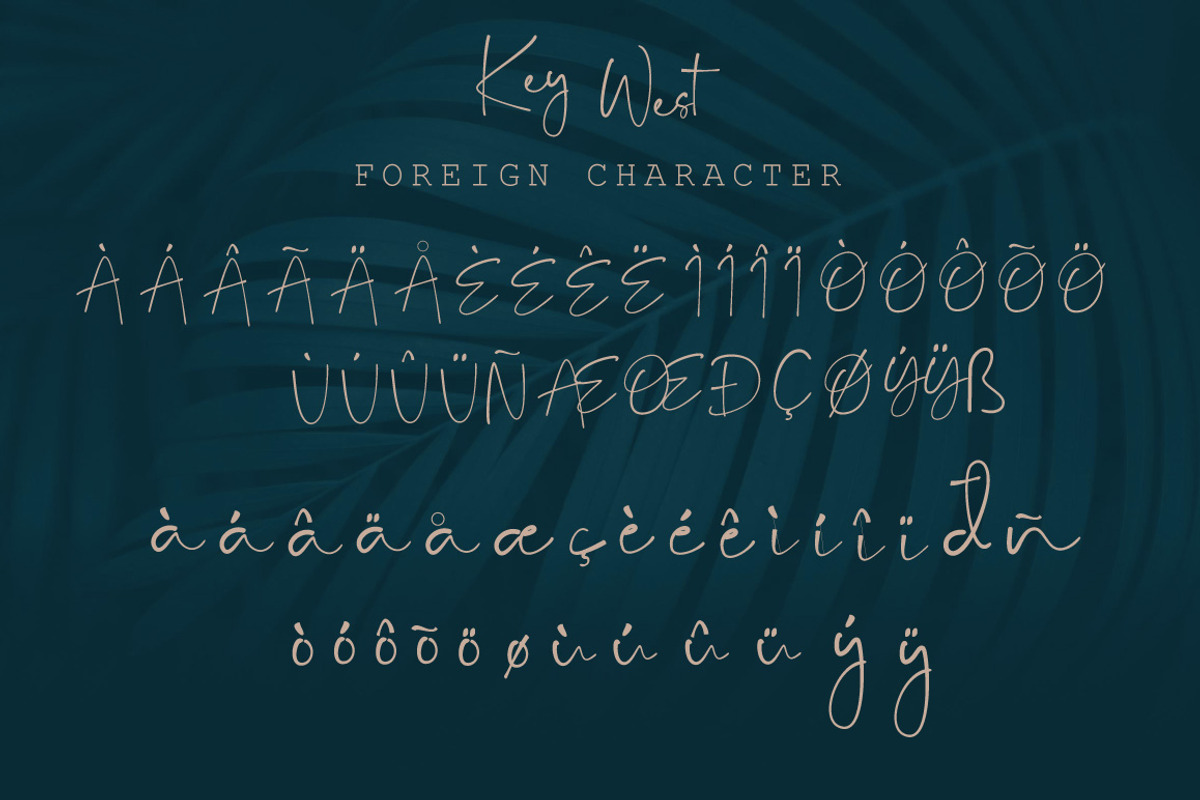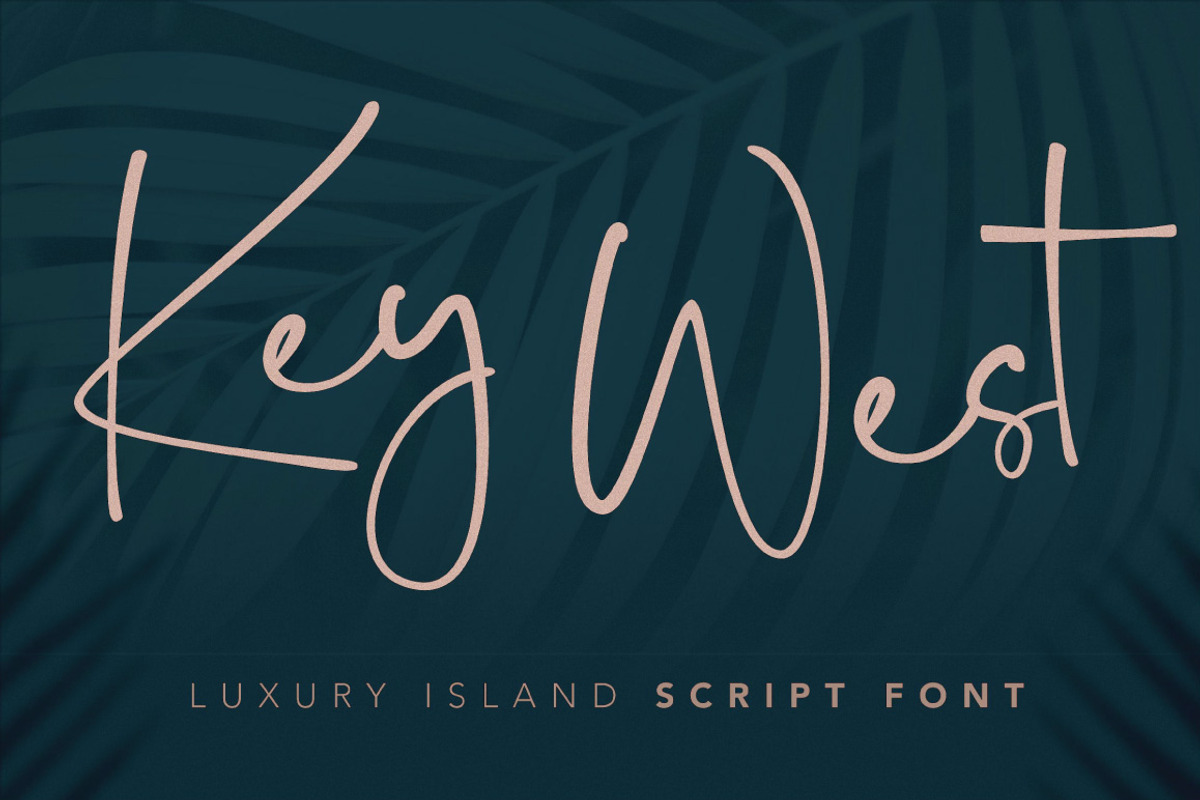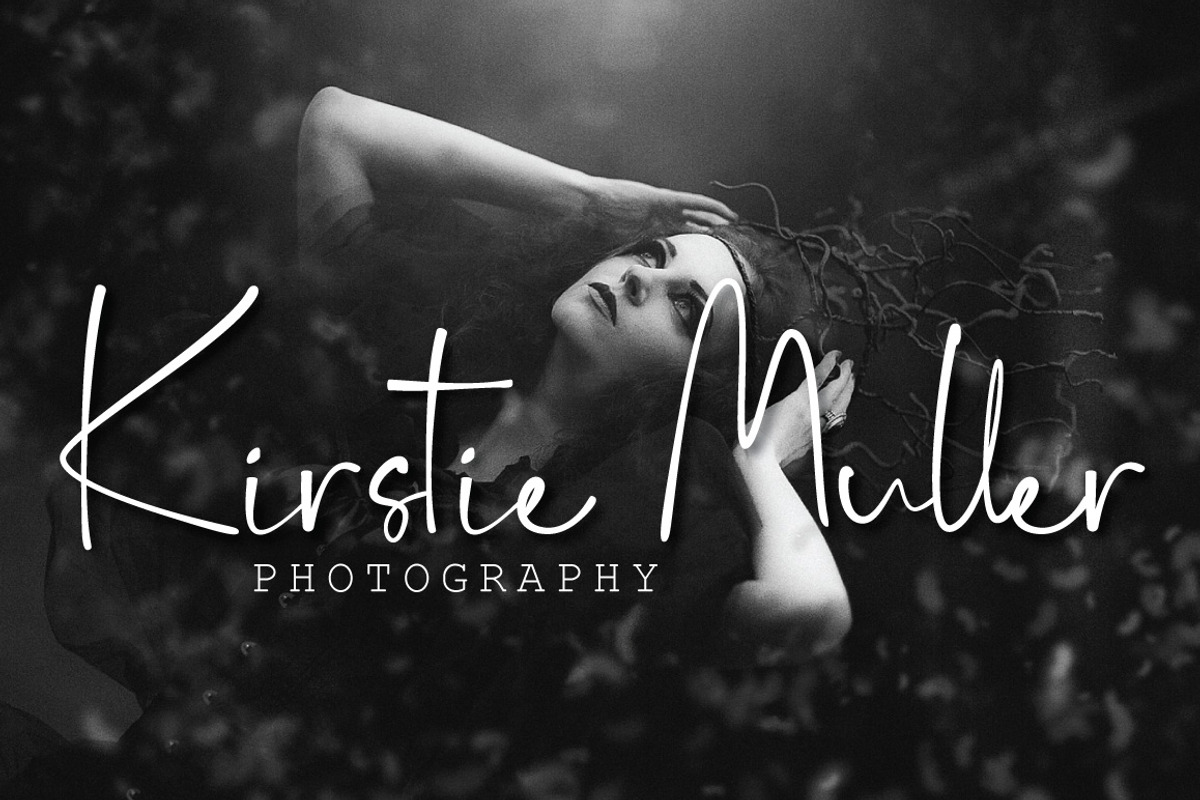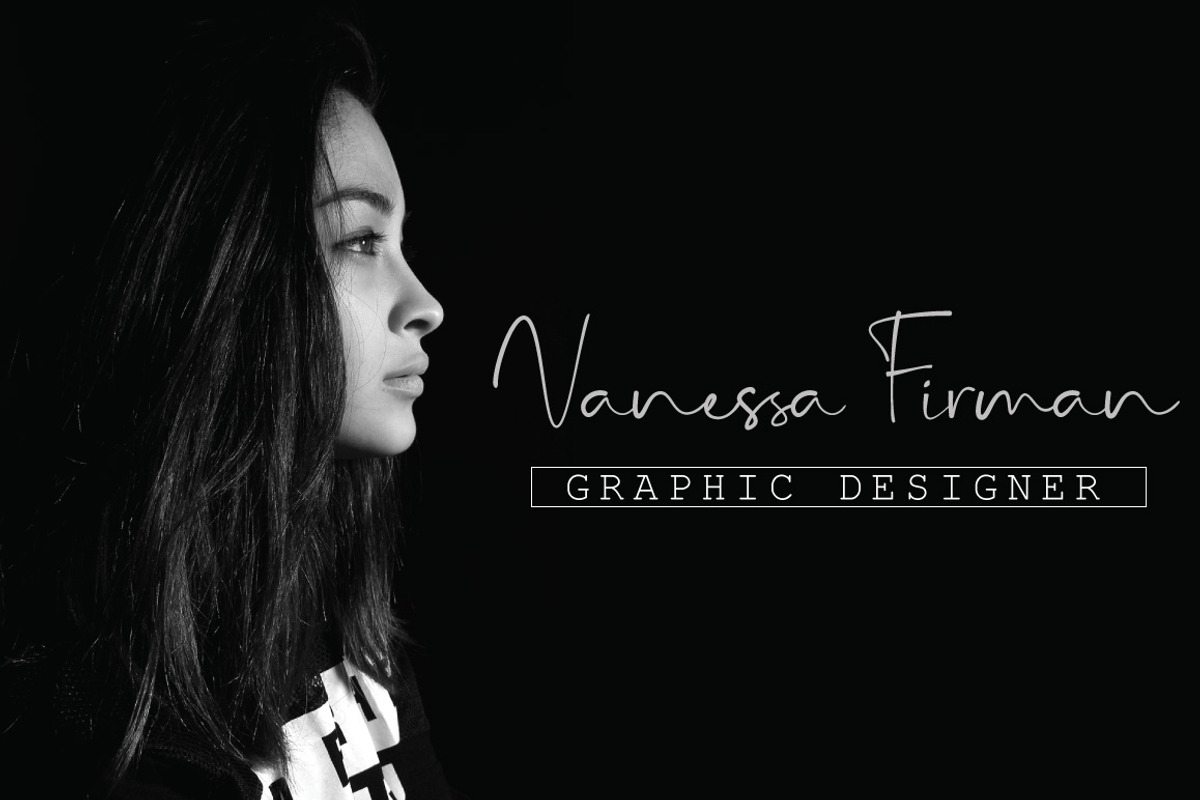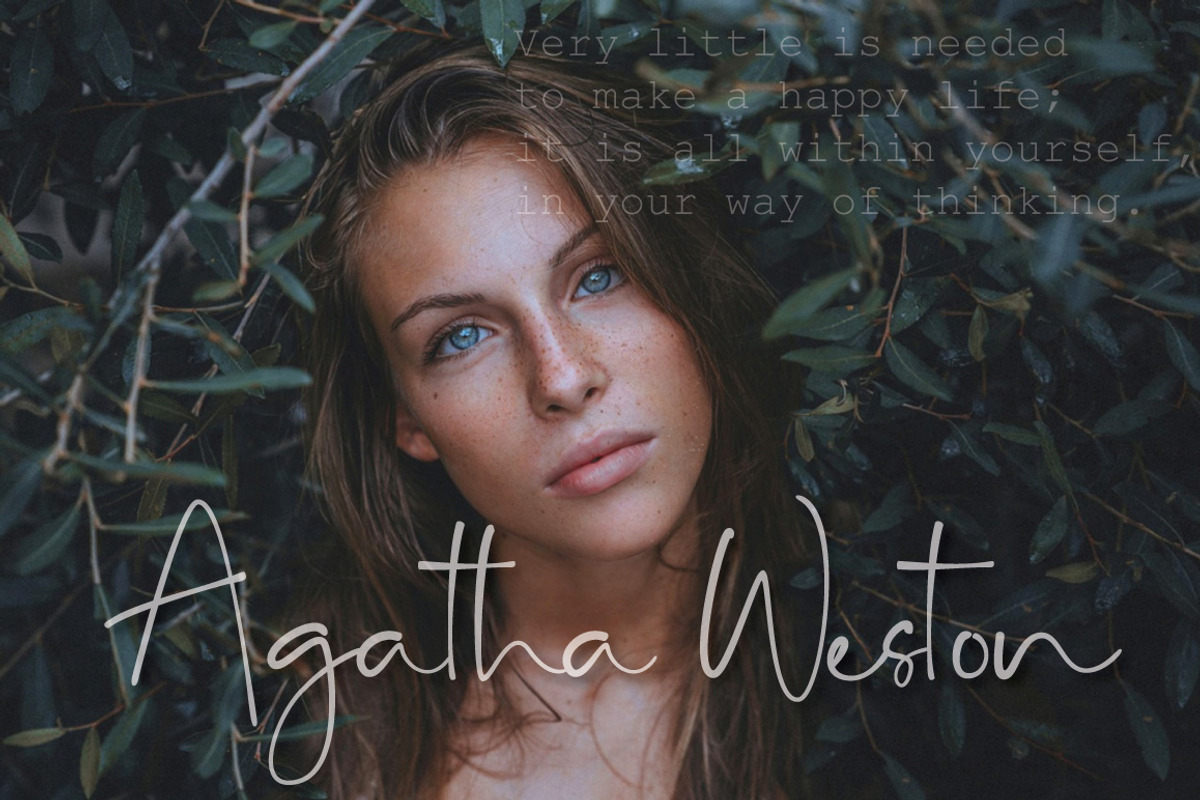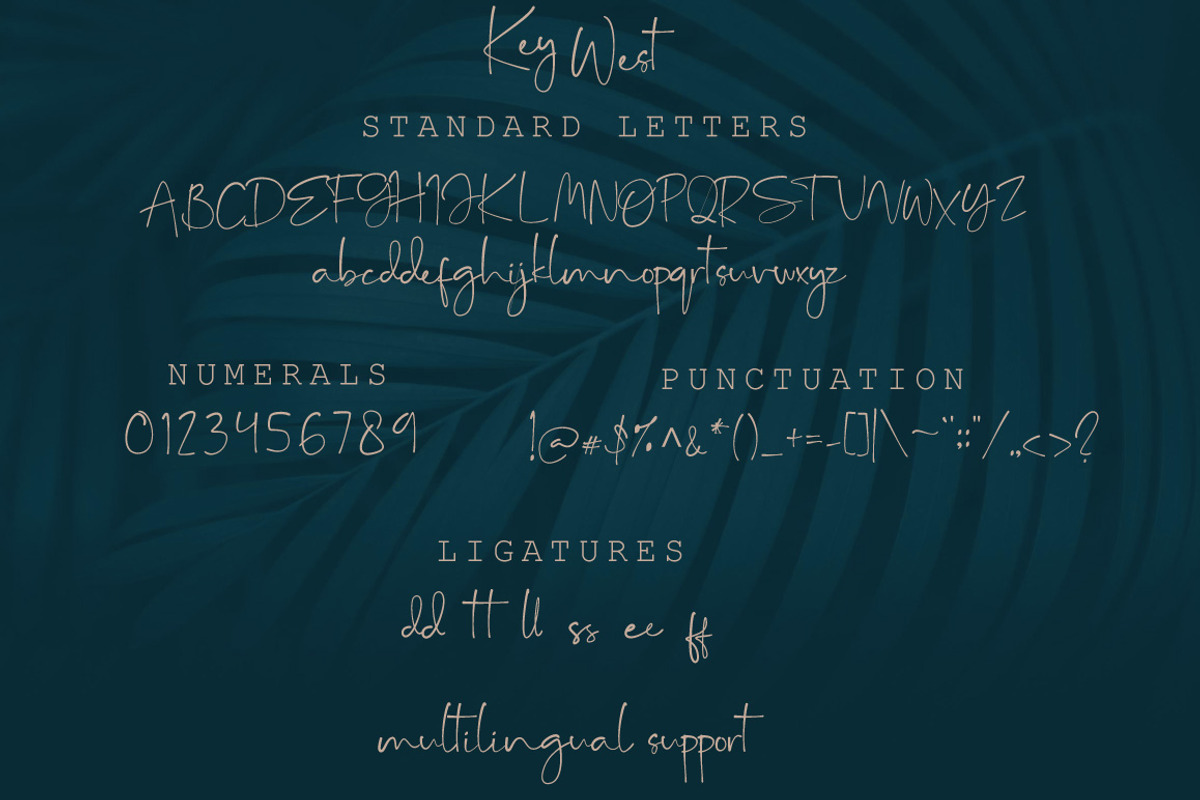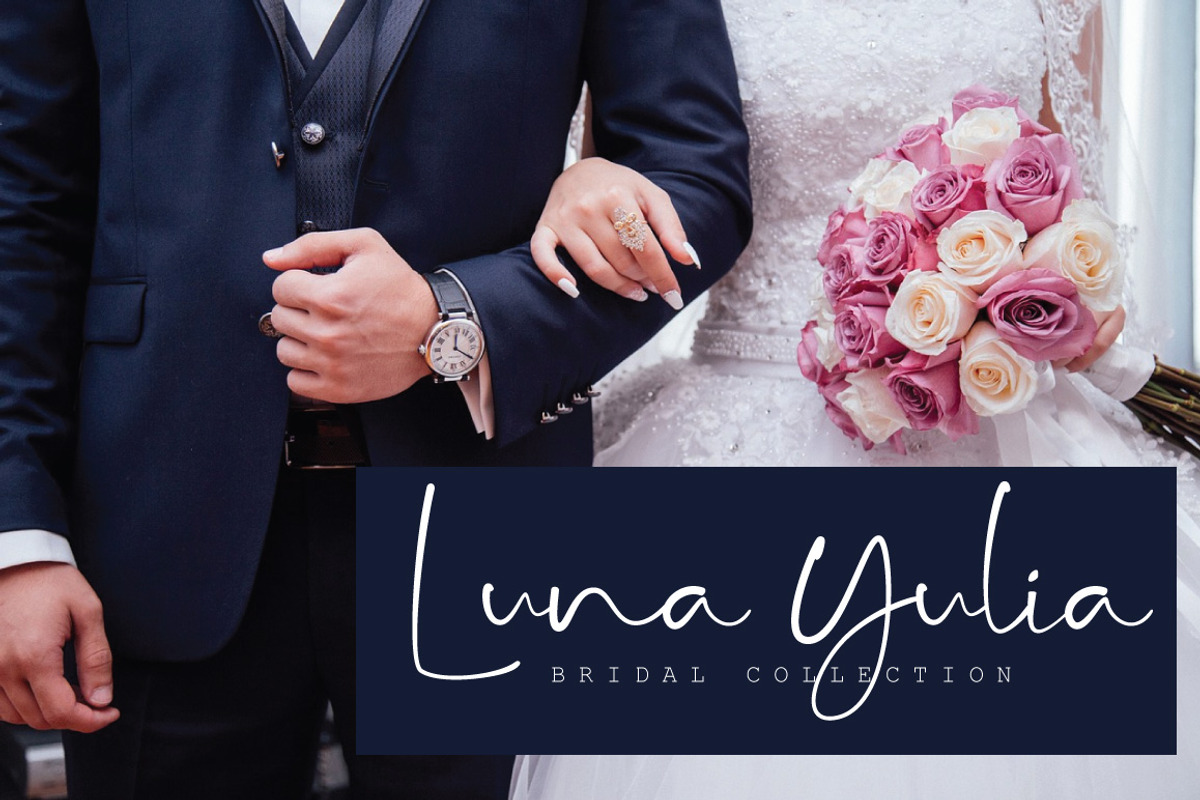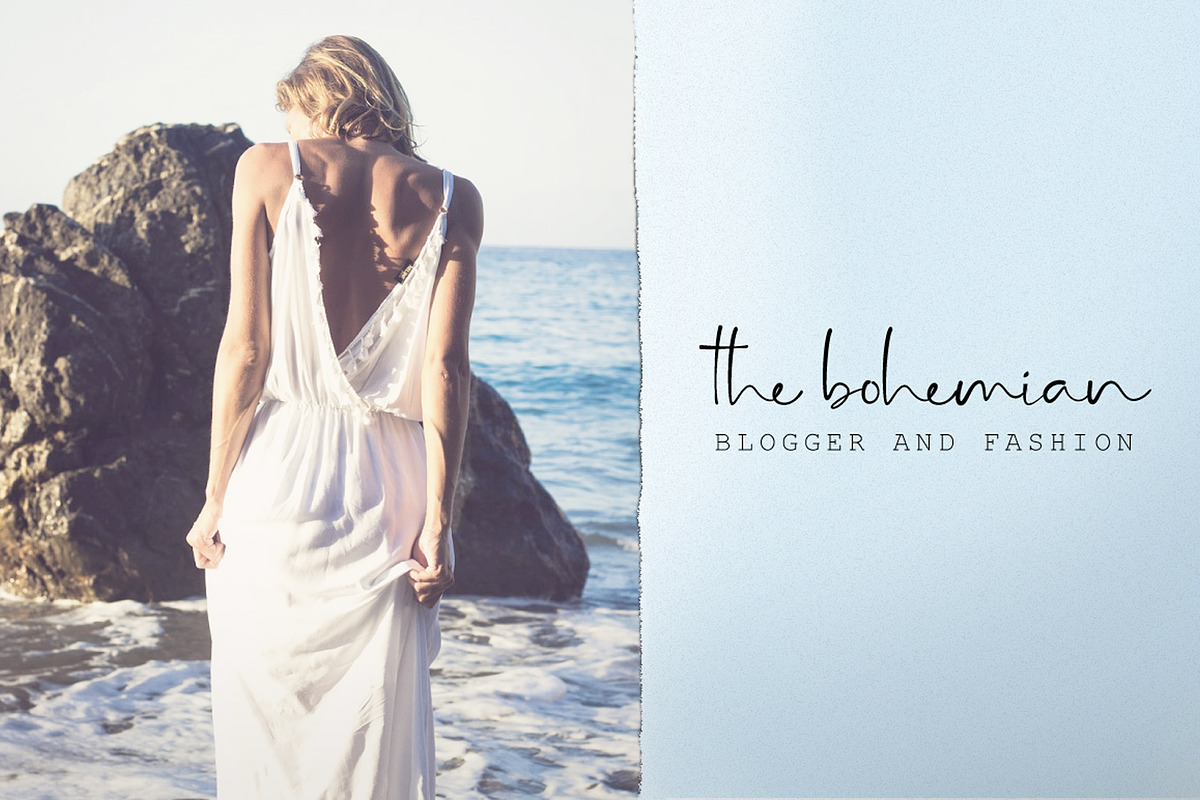
Key West Hand lettered Script Font
Introducing Key West Script Font! a chill, handwritten font with a handmade touch. Key West is perfect for branding projects, homeware designs, product packaging - or simply as a stylish text overlay to any background image.
Key West includes a collection of bonus clipart!
Key West Script • A handwritten script font containing upper & lowercase characters, numerals and a large range of punctuation.
- Fonts include multilingual support.
- Lots of ligatures.